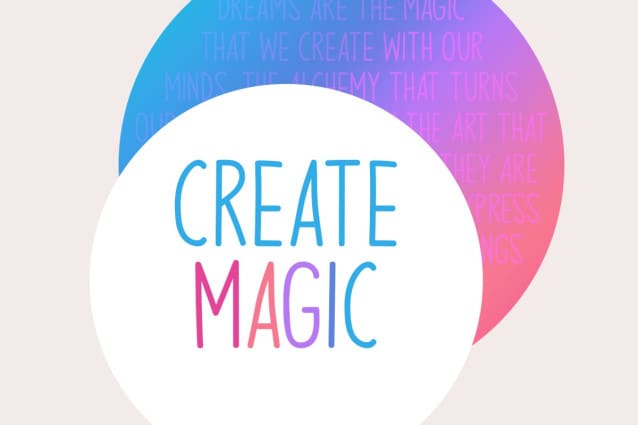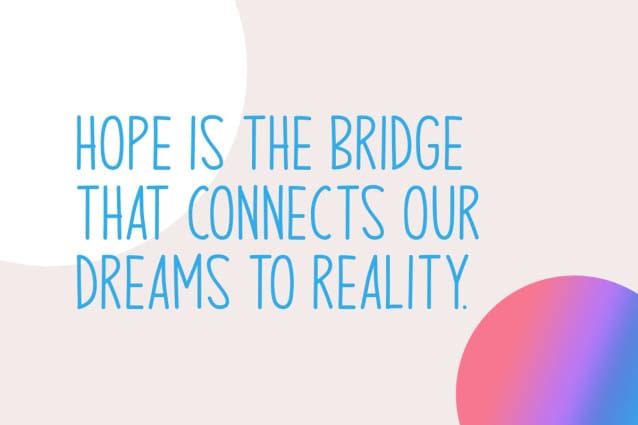
Chase Dreams Typeface
Chase Dreams Font is a pretty handwritten font. It can easily be matched to an incredibly large set of projects, so add it to your creative ideas and notice how it makes them stand out!